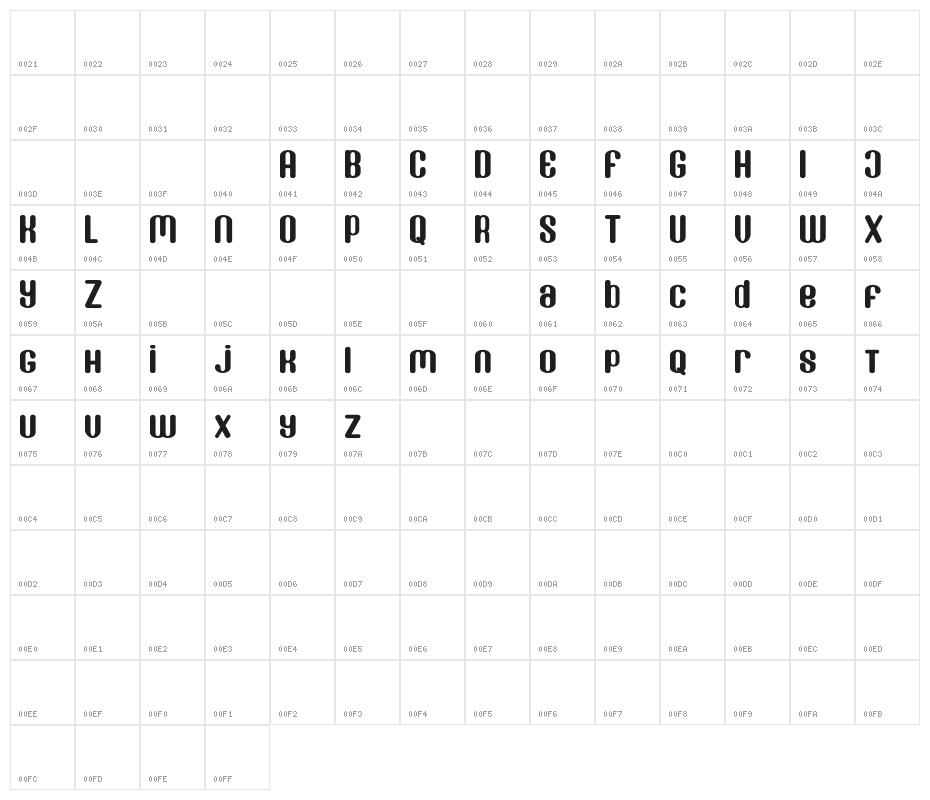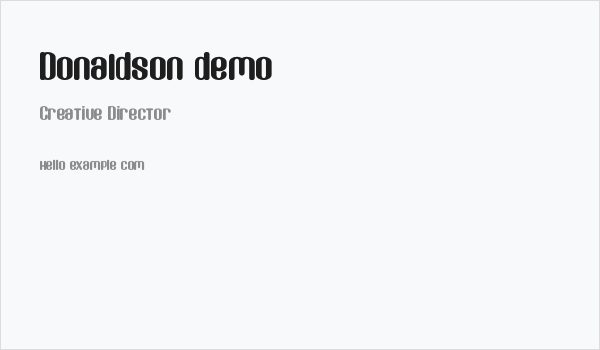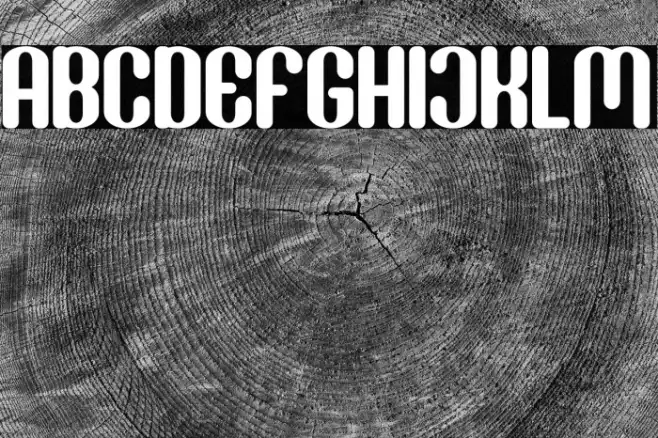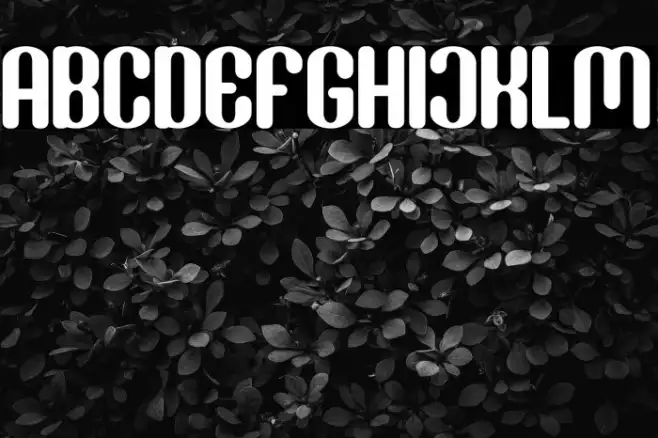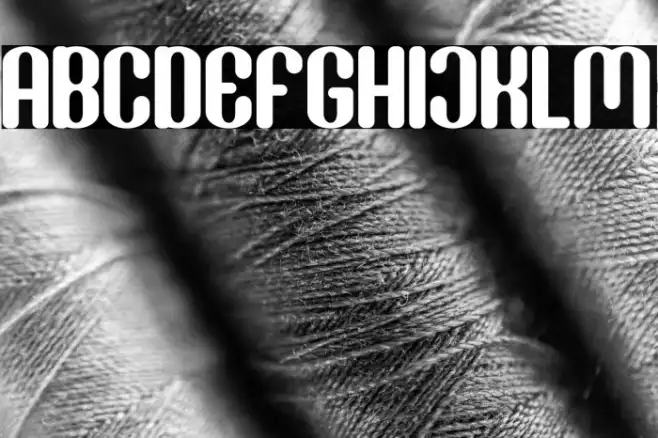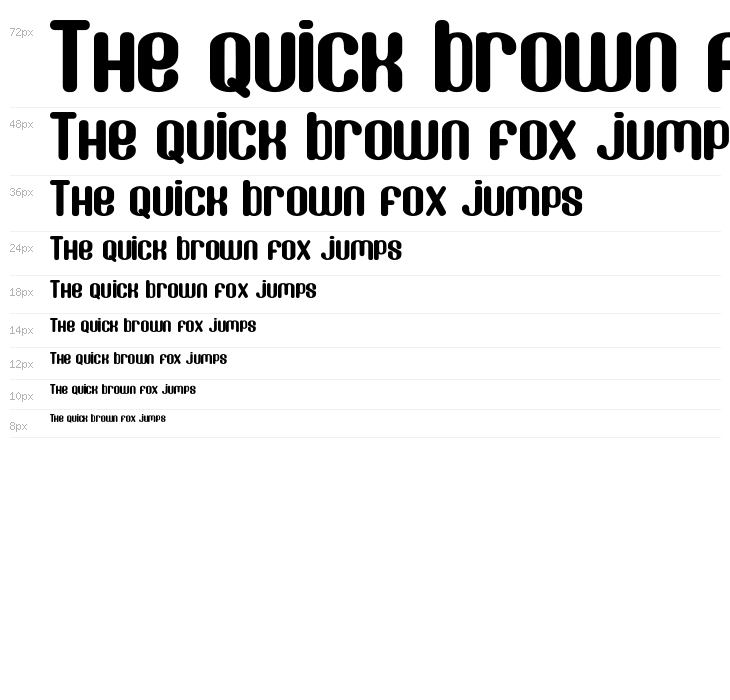
Donaldson demo Font
Donaldson demo Description
This font features a bold and rounded style with a modern and playful aesthetic. The characters are uniformly thick, creating a strong visual impact. The rounded edges give it a friendly and approachable feel, while the consistent stroke width maintains a clean and organized appearance. The uppercase and lowercase letters are designed with a similar width, ensuring uniformity across text. The numbers and special characters follow the same design principles, making this font versatile for various uses. Its boldness and unique style make it stand out, ideal for grabbing attention.
| Proposed Projects | Ideal for branding, headlines, posters, and advertising materials where a strong and friendly impact is desired. |